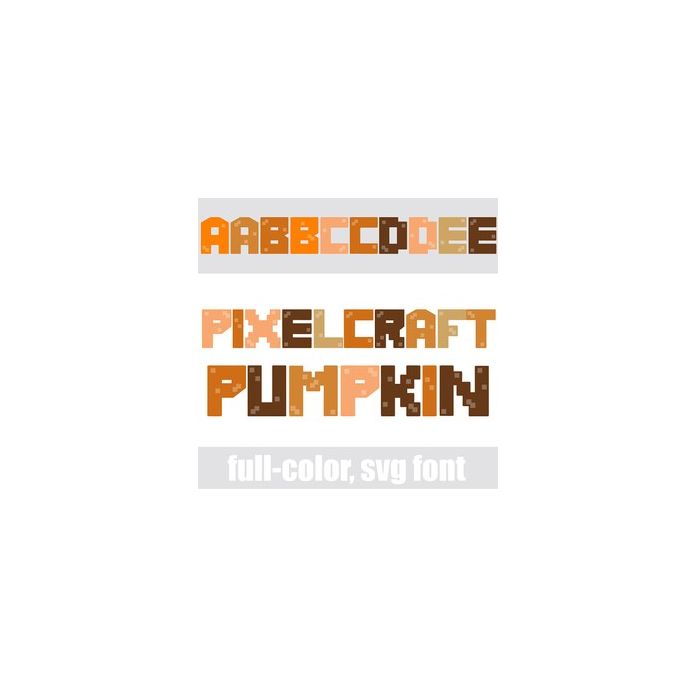
This full-color font is a video-game style font done in a pumpkin color palette. There is an alt case w/ additional colors you can access through your system or Silhouette's glyph map.